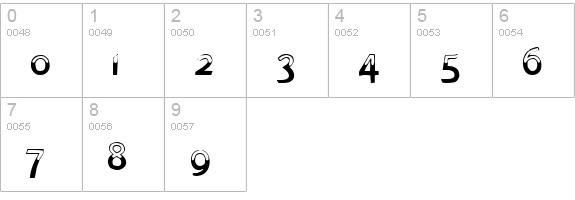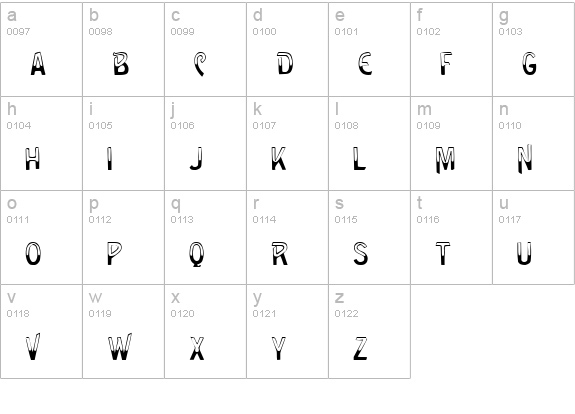
Transvestit font is a unique and eye-catching typeface that is sure to make your designs stand out. This font exudes a sense of playfulness and creativity, perfect for adding a touch of personality to your projects. With its bold and modern look, Transvestit font is versatile and can be used for a wide range of design purposes, from posters to logos to social media graphics. Best of all, Transvestit font is completely free to download at FontsMarket.com. This means you can easily access and use this fantastic font in your projects without any cost. Don't miss out on the opportunity to enhance your designs with the distinctive style of Transvestit font, available for free at FontsMarket.com.